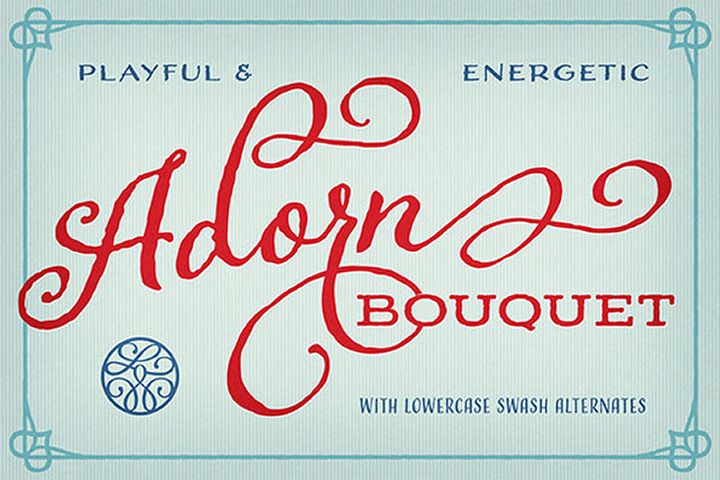
Adorn Bouquet is the daydreamy doodles in the corner of the wedding to do list; it’s the bachelorette party, or the baby shower. Adorn Bouquet is intentionally irregular, created with a practiced hand to communicate joy. There’s nothing static about this font: The letters bounce along the baseline, with little tilts all askew, and swashes that bring some letters as close as two lovers or pull them as far apart as the sweep of an endless train on a bridal gown. Features 240 swashes and alternate letterforms.